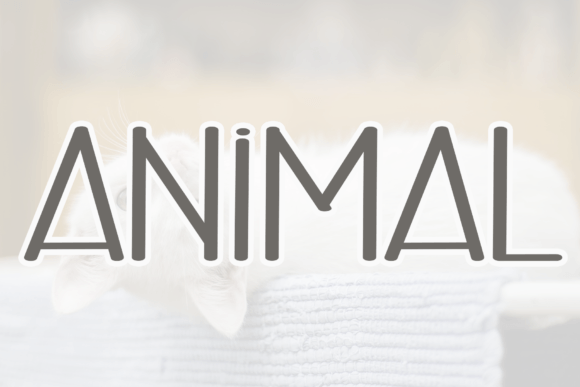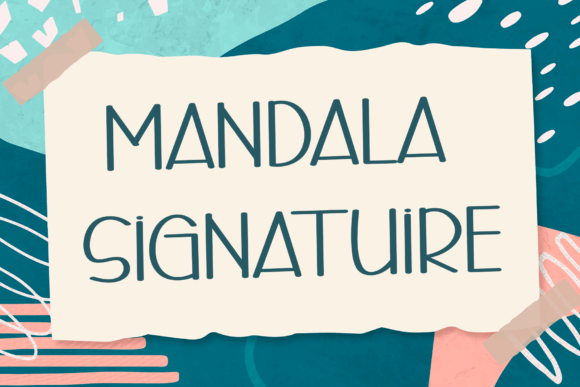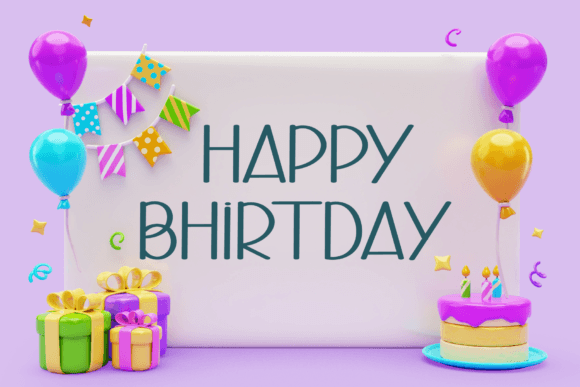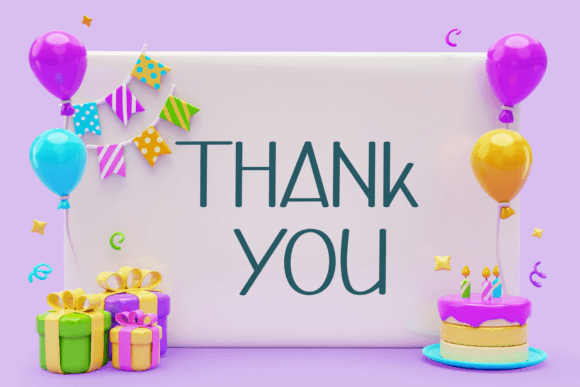
Getting Crafty: The Magic of Boho Font
You know that moment when you’re brainstorming ideas for a special project, and suddenly the perfect font pops into your head? It’s like a spark of creativity that ignites your entire design process. For me, that moment often involves the Boho Font – a sweet and friendly sans-serif font that screams ‘whimsy’ and ‘charm.’
As a go-to font for wedding invitations, cards, and other design projects, Boho Font brings a touch of elegance and playfulness to any layout. Its cute and fun vibe makes it an ideal choice for designers looking to add a personal touch to their work. Whether you’re creating a custom invitation suite or designing a brand identity, Boho Font is a valuable asset in your design toolkit.
With its versatility and charm, Boho Font is a must-have for any designer looking to add a little extra magic to their projects.
Key Features of Boho Font
- Unique Characteristics: The font features a unique, hand-drawn style with a mix of bold and elegant lines, making it perfect for creative and artistic designs.
Boho Font Review
As a designer, I was excited to dive into the Boho Font and see if it lived up to its bohemian-inspired name. Here’s my honest review.
- The Boho Font has a unique, eclectic feel that’s perfect for adding a touch of whimsy to designs.
- The font’s irregularities and imperfections give it a handmade, artisanal feel that’s hard to replicate with more polished fonts.
- The Boho Font is highly versatile and can be used in a variety of design contexts, from fashion and beauty to travel and lifestyle.
- The Boho Font can be difficult to read at small font sizes, particularly for body text.
- The font’s irregularities can sometimes make it hard to achieve consistent line spacing and alignment.
- The Boho Font may not be the best choice for designs that require a high level of professionalism or formality.
Overall, I think the Boho Font is a great addition to any designer’s toolkit, but it’s not without its limitations. With careful use and attention to detail, it can add a unique and eye-catching touch to designs. However, it’s not a font for every project, and designers should use their discretion when choosing to use it.
Boho Font is perfect for:
Travel and adventure branding
Wellness and spiritual marketing
Bohemian-inspired home decor and furniture design